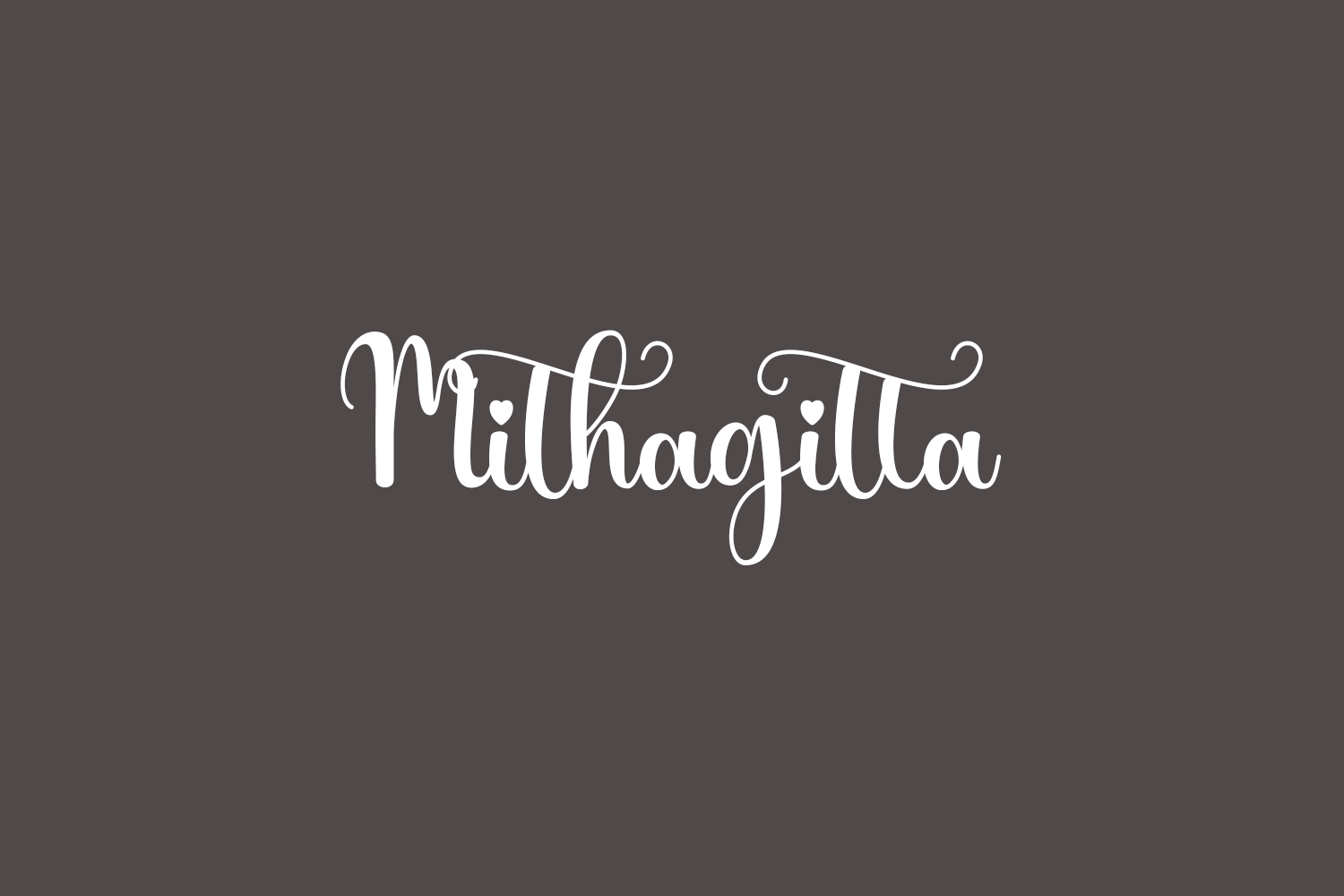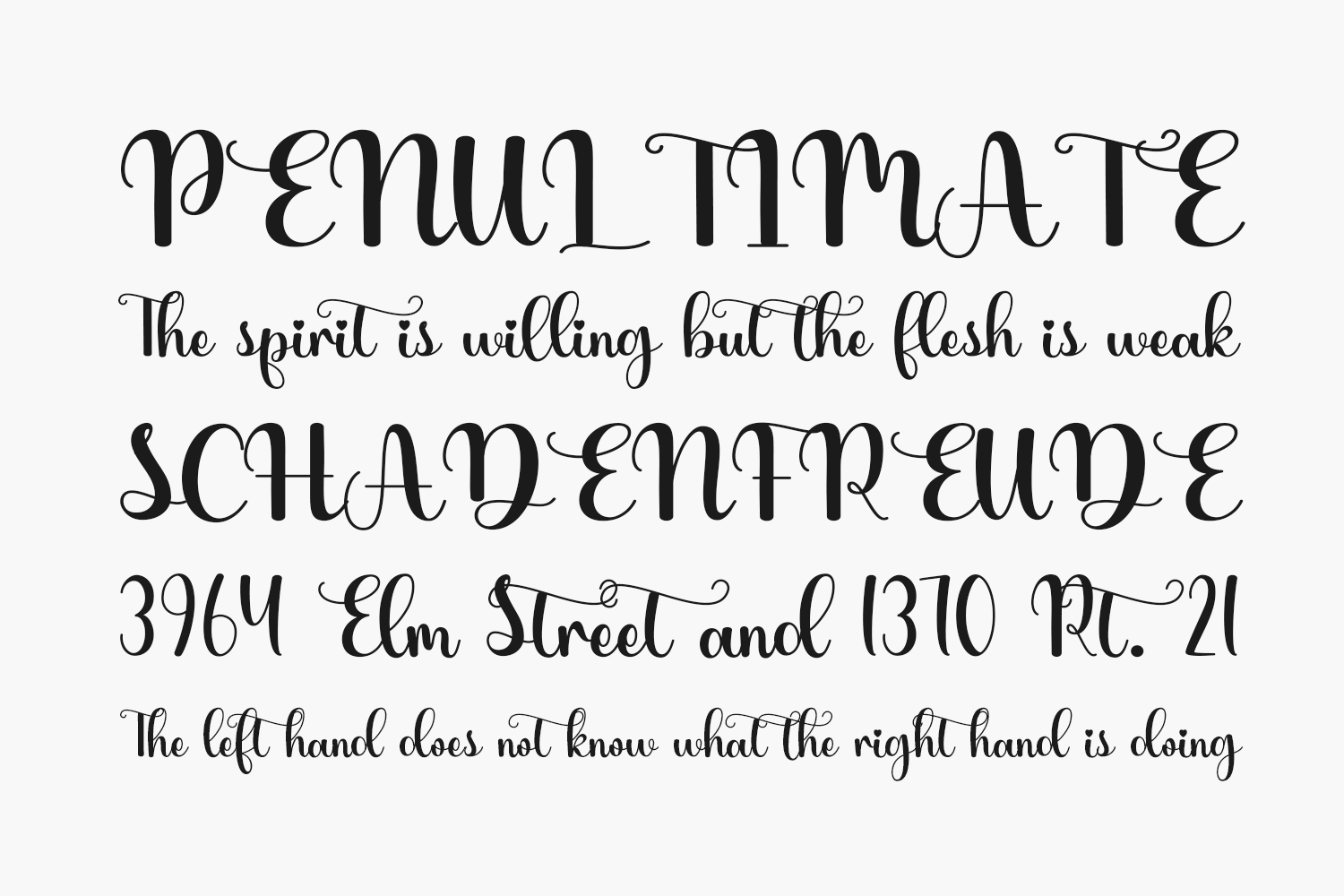
Mithagitta Free Font is an enchanting handwritten font. This versatile script font has a wide spectrum of applications ranging from greeting cards to headlines and is guaranteed to add a romantic feel to your next project. Mithagitta Free Font was designed by Fillo Graphic and is free for personal use only. Please purchase the full version for commercial use.